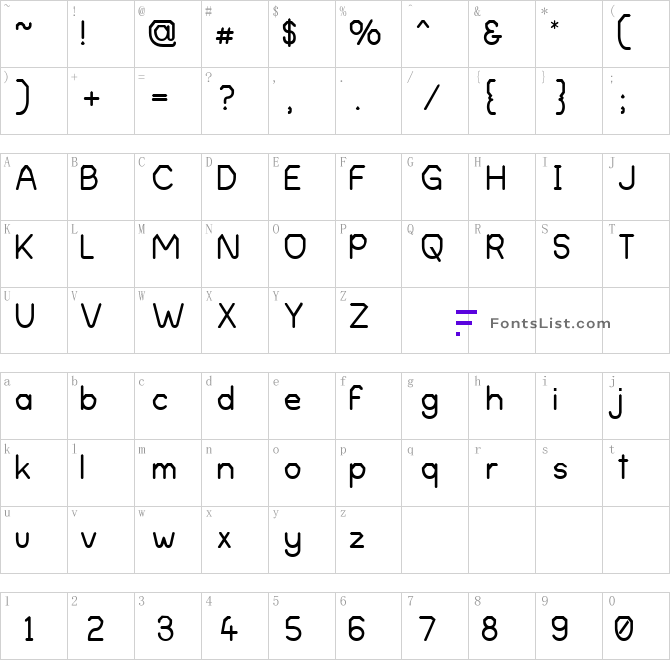
- Font Name:Alpha Romanie G98
Alpha-Romanie-G98.ttf is a very beautiful artistic font, Alpha-Romanie-G98.ttf is widely used in the design and printing of various books and pictures,Alpha-Romanie-G98.ttf has a strong visual impact,Alpha-Romanie-G98.ttf is a commonly used font in newspapers, magazines and books, and is used in posters, e-commerce Poster design, store design, logo design, font design and other fields.Alpha-Romanie-G98.